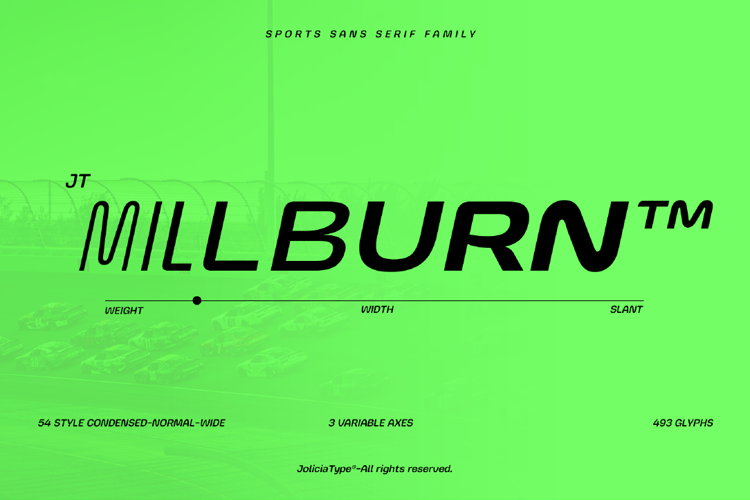
JT Millburn Wide Black Slant Font
Wide Black Slanted Style
JT Millburn is a dynamic variable typeface inspired by the precision and
speed of motorsport aesthetics. Designed with versatility in mind, JT
Millburn features three variable axes—Weight, Width, and Slant—
allowing designers to fine-tune the style to suit a wide range of creative
applications.